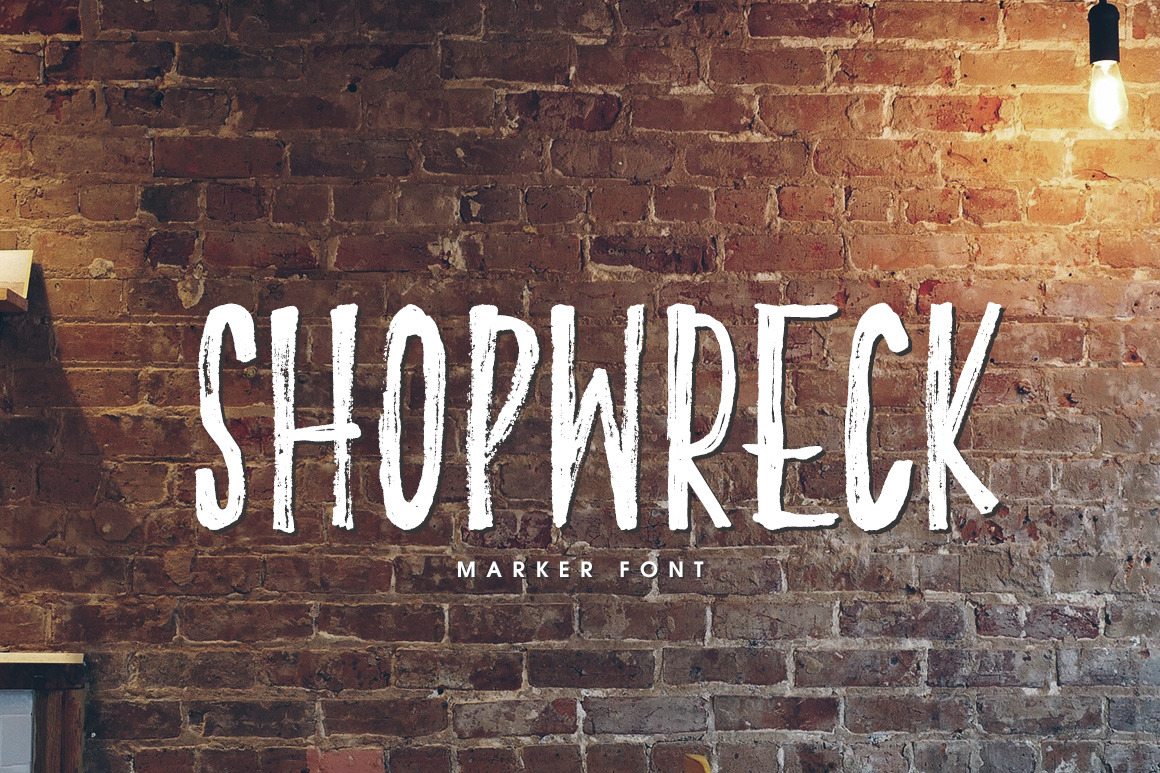
Shopwreck Marker Font
This is Shopwreck. A cool hand drawn marker font. This font is part of the Big Bunch of Fonts Volume 2 here https://crmrkt.com/3NkJ